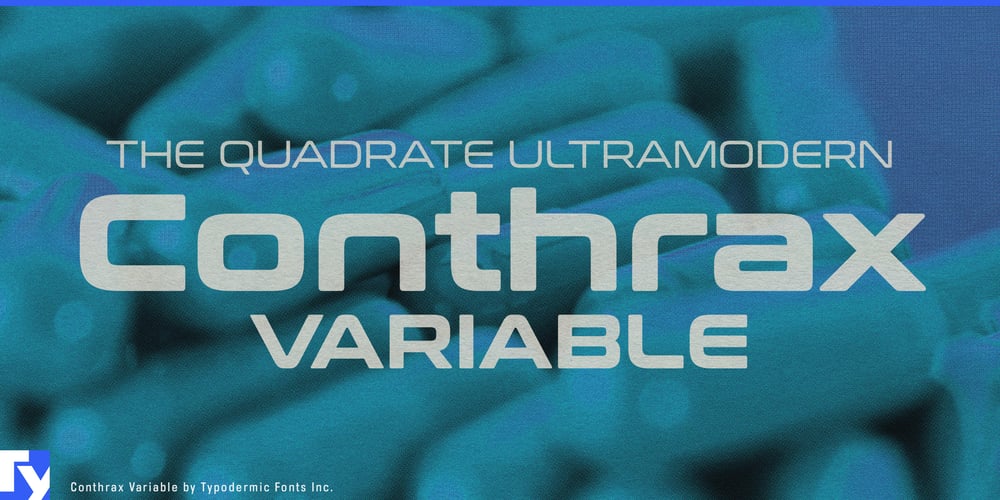
Conthrax Variable Font Family was designed by Ray Larabie and published by Typodermic. Conthrax Variable contains 1 styles and family package options. Step into the future of dynamic typography with Conthrax Variable, where precision meets limitless possibility. This cutting-edge evolution of the acclaimed Conthrax family harnesses the power of variable font technology to push the boundaries of modern design even further.At its core, Conthrax Variable maintains the distinctive ultramodern DNA of its predecessor—those sleek orthogonal forms and tech-inspired shapes that have made the original Conthrax (available as a separate family with nine weights and matching italics) a favorite for forward-thinking designers. But this variable edition takes that foundation into new territory, offering unprecedented control over your typography’s voice and personality.The smoothly adjustable weight axis lets you fine-tune the perfect balance for any context, while the revolutionary slant axis extends beyond the conventional Conthrax’s 12-degree angle to reach a dynamic 15 degrees. This expanded range of motion opens up new possibilities for creating fluid, responsive designs that adapt seamlessly to any screen or situation. From subtle weight adjustments in responsive interfaces to dramatic slant variations in motion graphics, Conthrax Variable responds with surgical precision to your creative direction.Like its conventional counterpart, Conthrax Variable speaks the universal language of innovation. Its extensive character set spans continents and cultures, supporting Vietnamese, Greek, and numerous Cyrillic-based languages alongside Latin scripts. Every mathematical symbol, fraction, and monetary glyph has been carefully optimized to maintain clarity across the full spectrum of weights and slants.In an era where technology evolves at the speed of thought, Conthrax Variable stands ready to meet the demands of tomorrow’s design challenges. Whether you’re crafting dynamic user interfaces, developing adaptive brand systems, or pushing the boundaries of motion typography, this sophisticated tool puts the future of design at your fingertips.Choose Conthrax Variable when you need typography that doesn’t just keep pace with technology—it helps define it. Because in the world of tomorrow, the most powerful designs will be the ones that adapt, evolve, and transform with fluid precision.